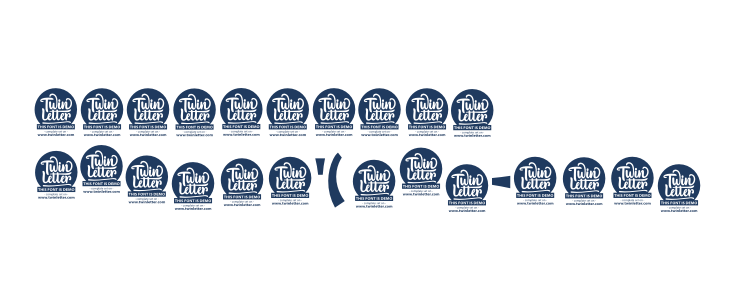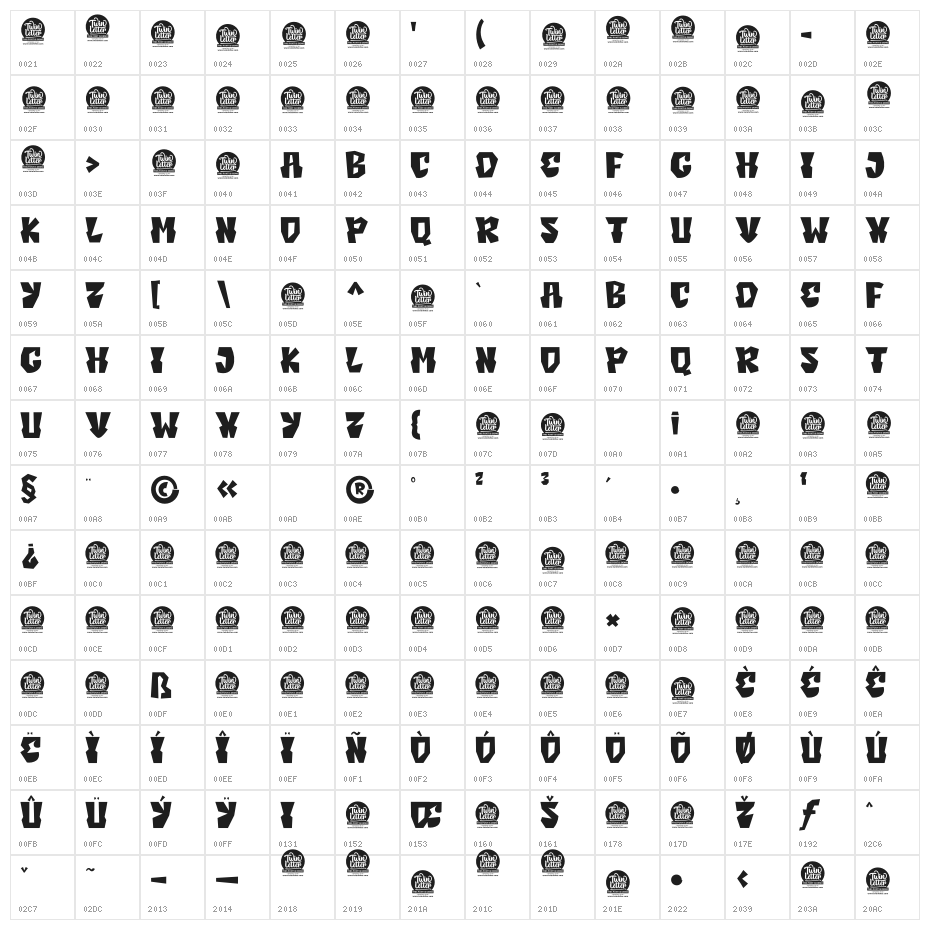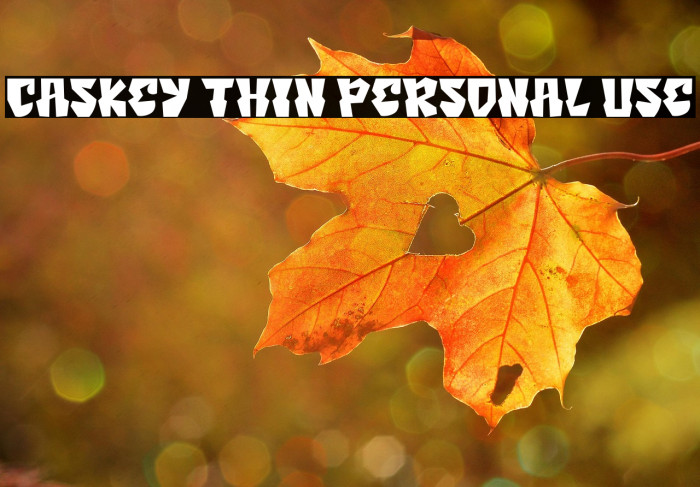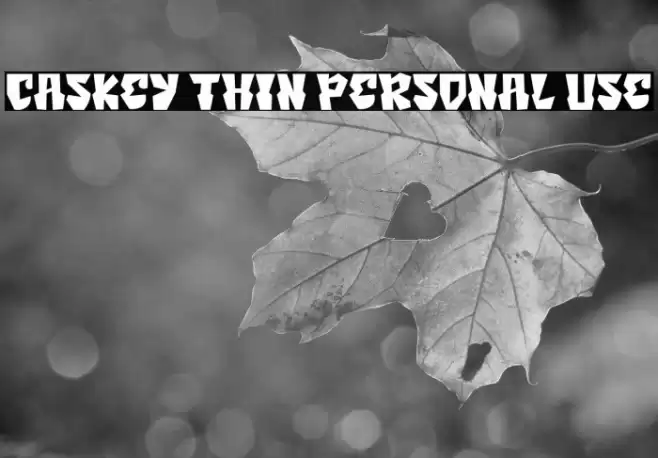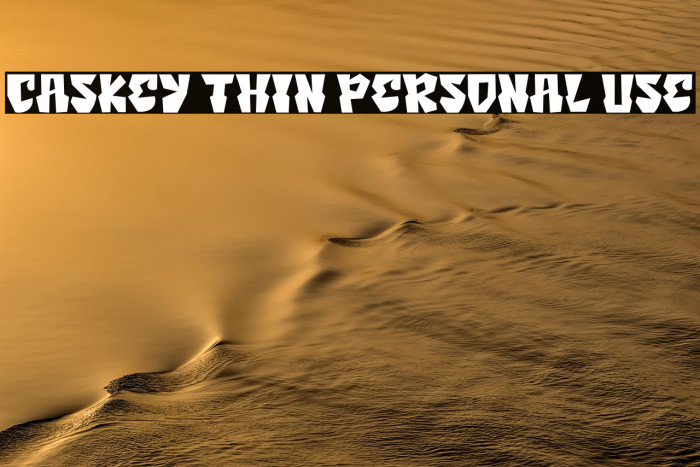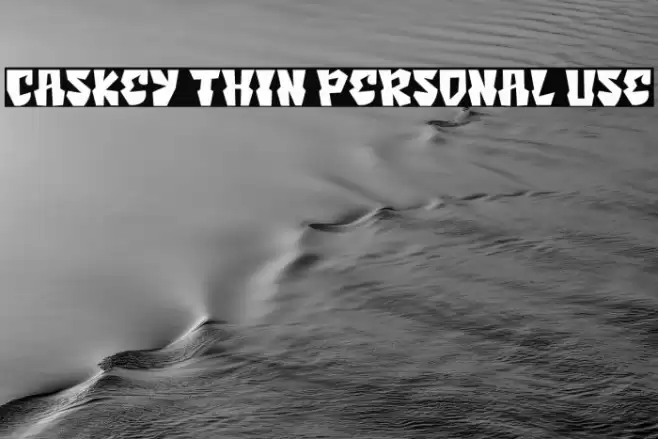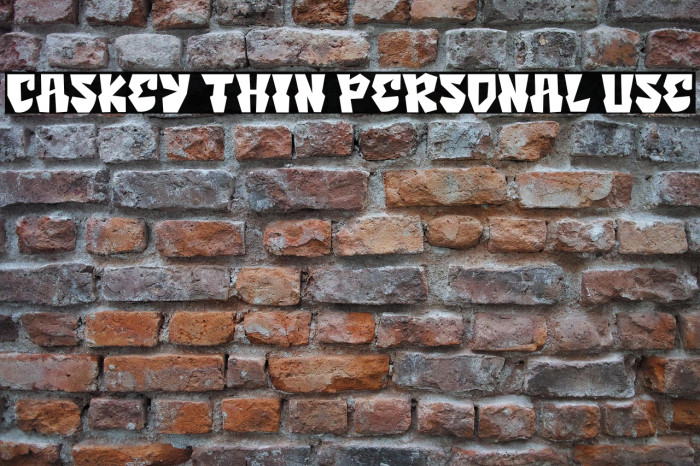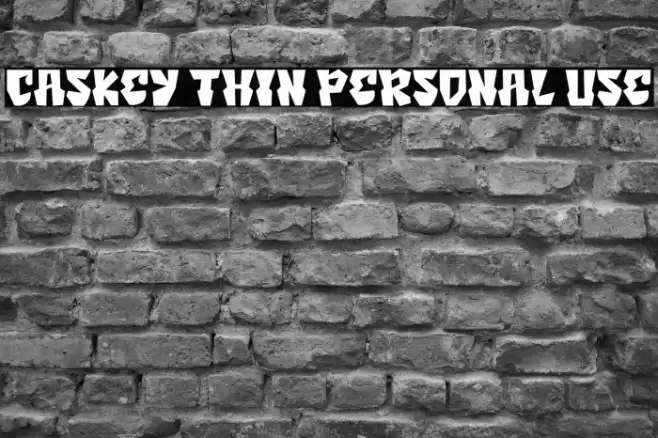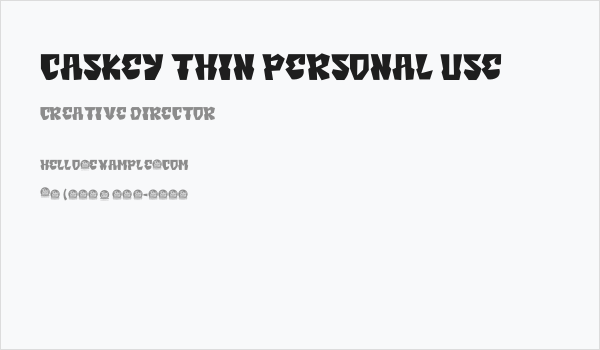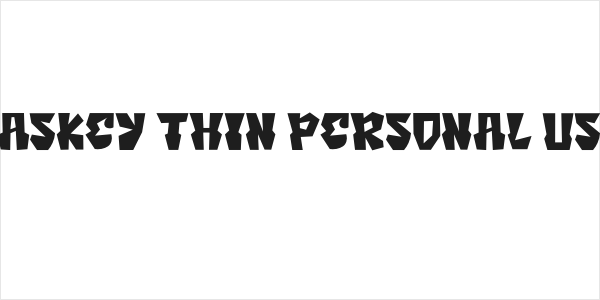
Caskey Thin Personal Use Font
Caskey Thin Personal Use Description
This font features a bold and striking design with angular, geometric shapes that create a sense of movement and energy. The uppercase letters are particularly distinctive, with sharp edges and a slightly condensed form that gives them a compact appearance. The font's overall style is reminiscent of modern graffiti or urban art, making it ideal for projects that require a bold and edgy aesthetic. The characters are tightly spaced, enhancing the font's impactful presence. This font is best suited for display purposes, where its unique style can be fully appreciated.
| Overall Style | Modern, Urban |
| Proposed Projects | Ideal for posters, album covers, streetwear branding, and any project needing a bold, urban aesthetic. |